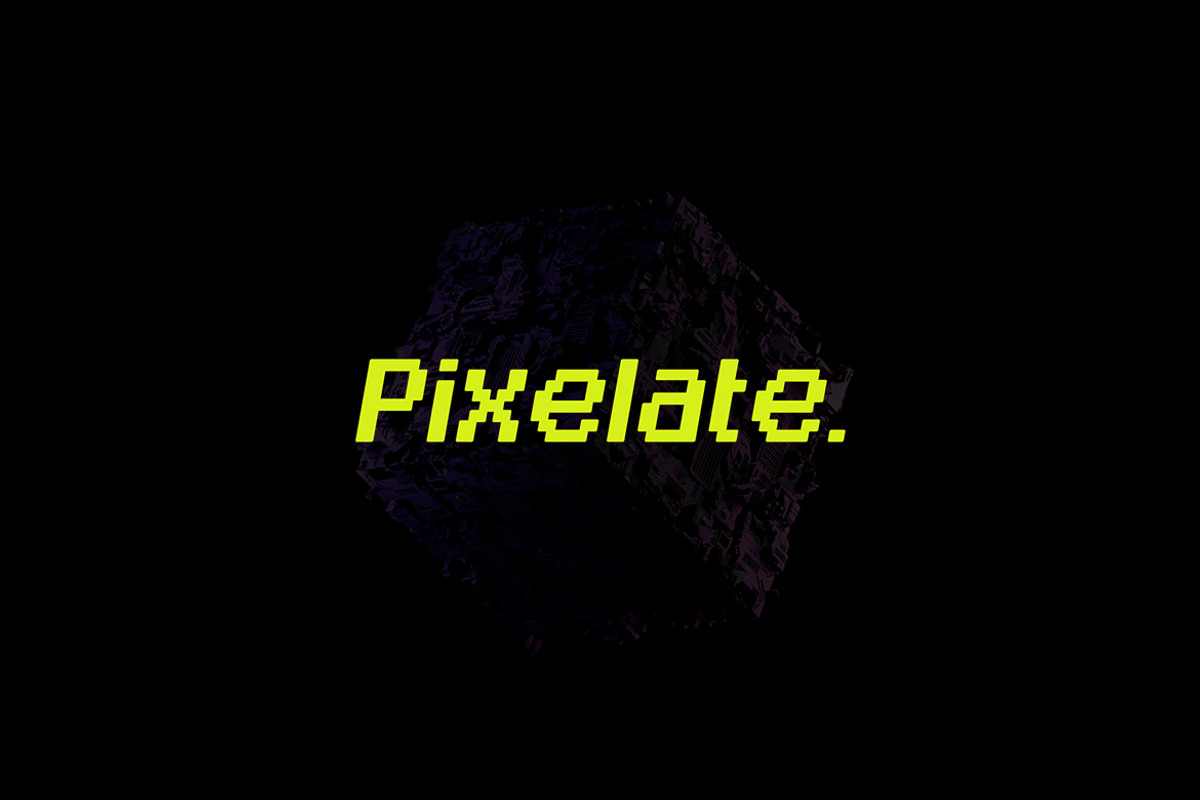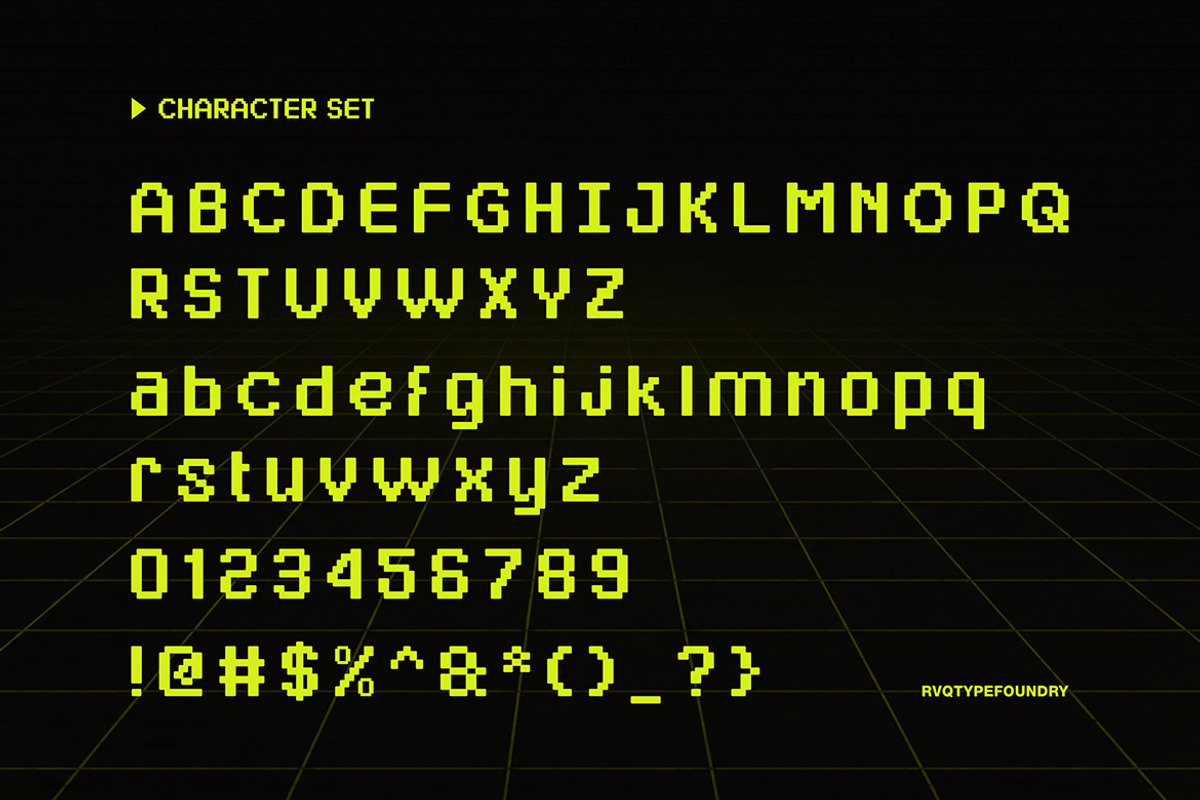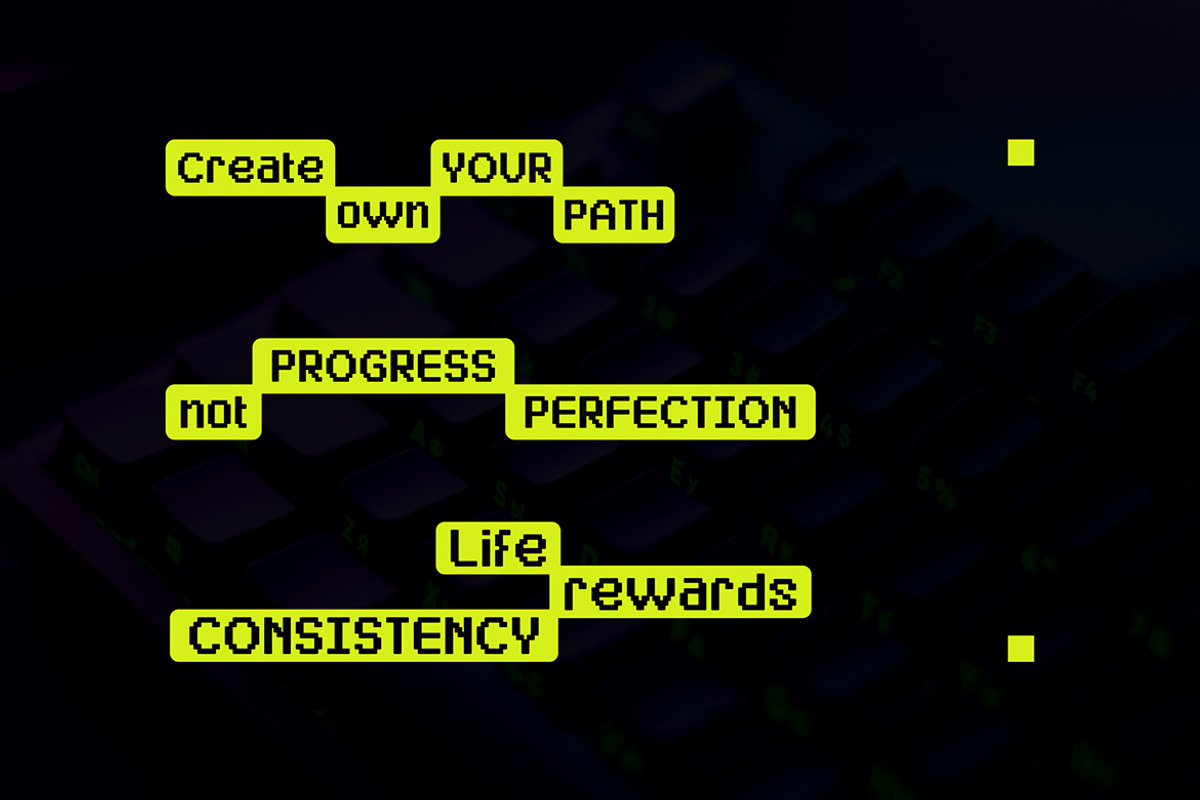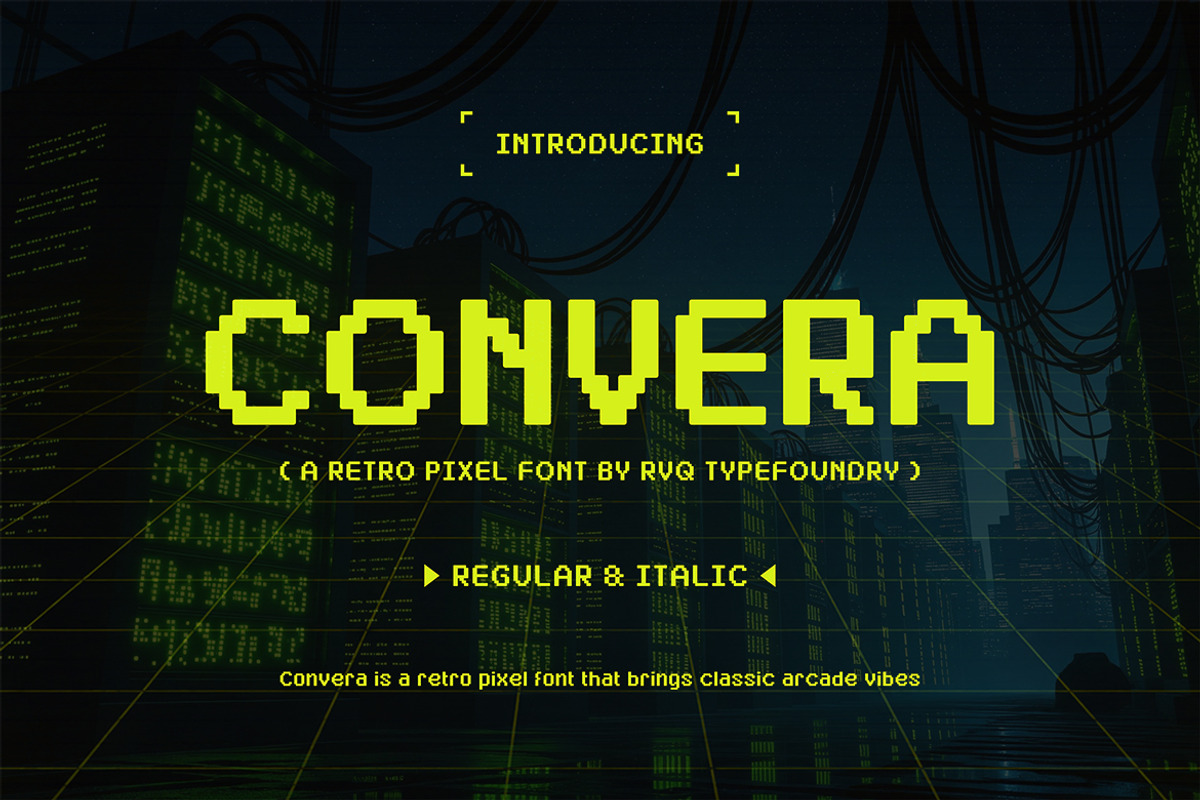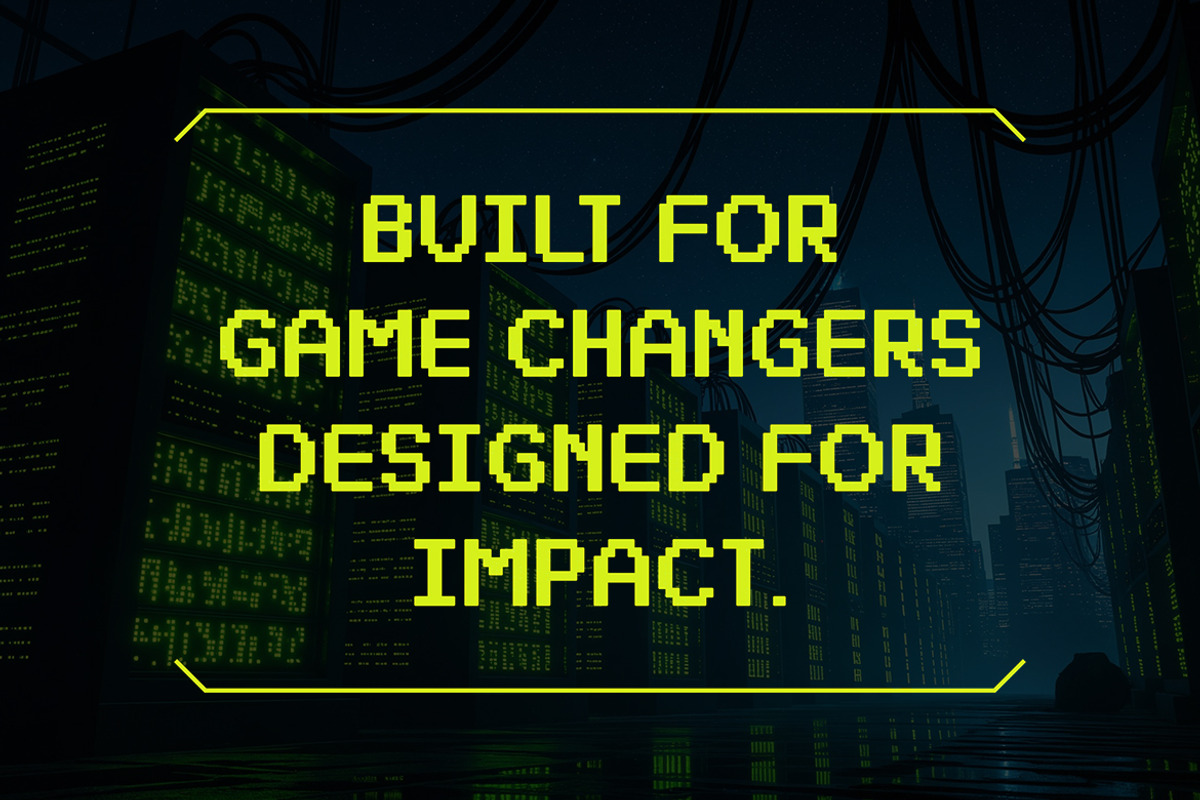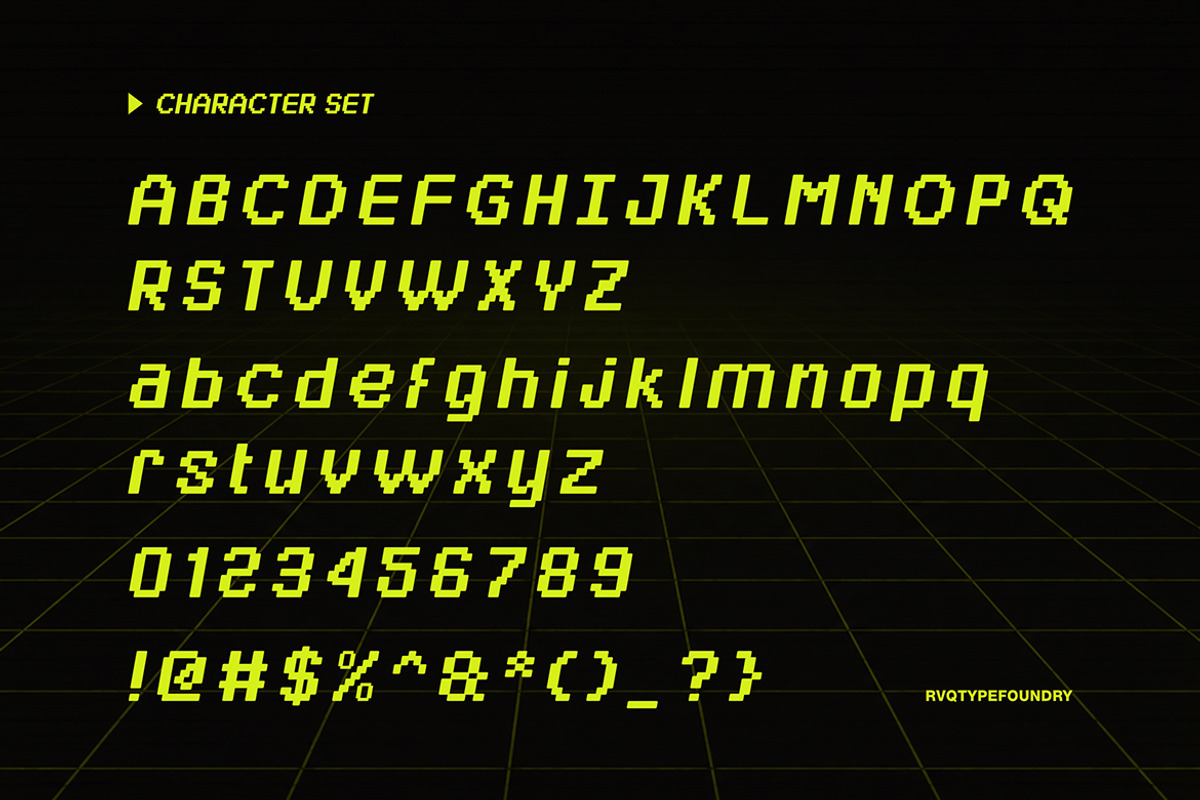
Convera
CONVERA – Retro Pixel Font by RVQ Typefoundry
Step back into the golden age of arcade gaming with Convera, a bold retro pixel font designed to capture the nostalgic charm of classic 8-bit and 16-bit digital worlds. Featuring sharp pixel-perfect shapes, clean geometric forms, and a futuristic cyber-inspired aesthetic, Convera is the perfect choice for projects that demand a vintage gaming atmosphere with a modern edge.
Whether you're creating game titles, pixel art posters, tech branding, streaming graphics, merchandise, social media content, or retro-inspired designs, Convera delivers a distinctive look that instantly evokes the spirit of old-school arcades and digital adventures.
- Regular & Italic Styles
- Uppercase & Lowercase Characters
- Clean Pixel Construction
- Easy to Read at Various Sizes
- Multilingual Support (if included)
- Perfect for Retro, Gaming, Tech, and Cyberpunk Projects